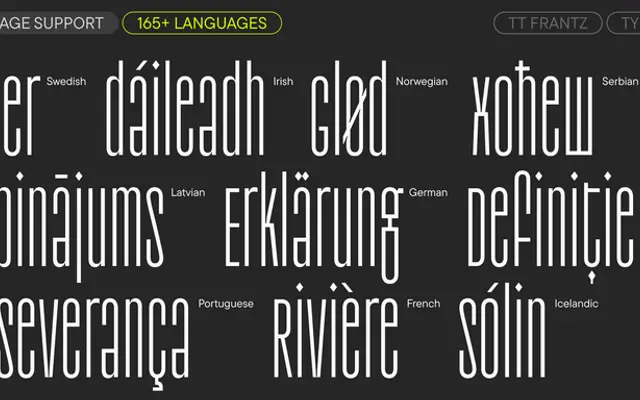
TT Frantz
TypeType · Vika Usmanova, Ivan Gladkikh · 2019
A narrow display grotesque with a variable axis that shifts the midline height up or down, producing Art Deco-influenced letterforms across three fixed static styles and one variable font.
Designed by Vika Usmanova and Ivan Gladkikh at TypeType, TT Frantz uses a single variable axis to raise or lower the waistline of its letters, changing the aperture closure of certain characters as a side effect. The family includes three static styles — A, B and C — each locking the midline in a high, mid or low position, alongside a variable font for continuous adjustment. Suited to packaging, fashion editorial and poster work at medium to large sizes, with support for 165 languages across Latin and Cyrillic scripts.
A narrow, experimental display grotesque with variable axis controlling midline height, drawing on Art Deco proportions. Its decorative intent and large-size focus place it firmly in the display category.